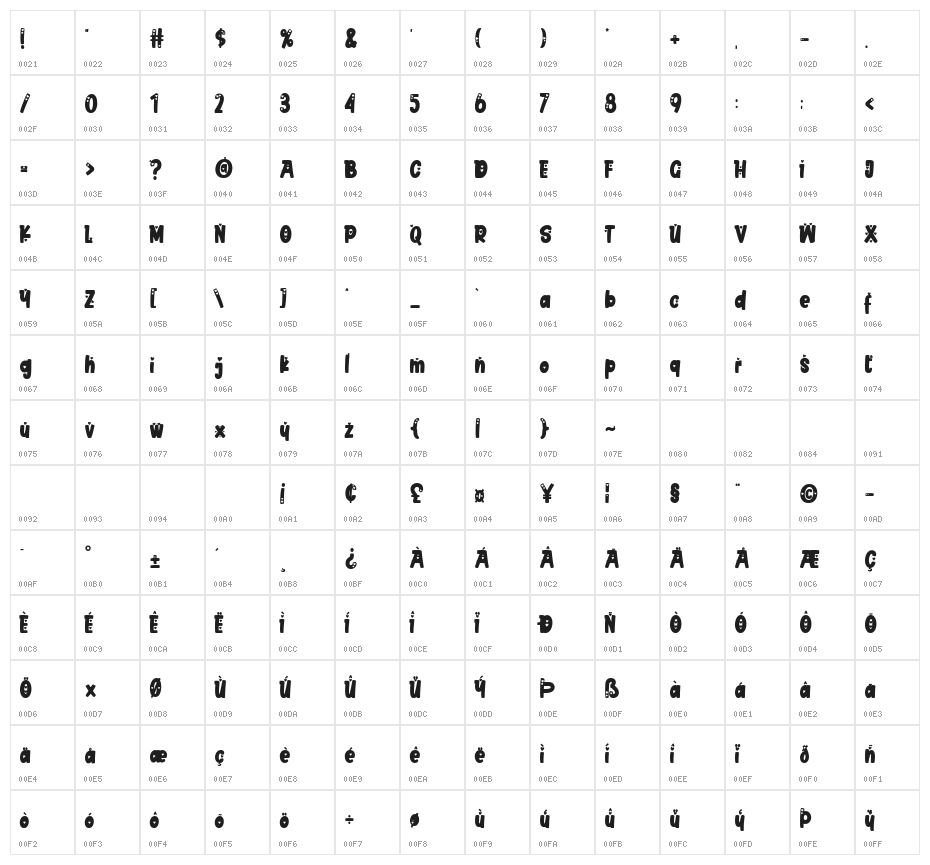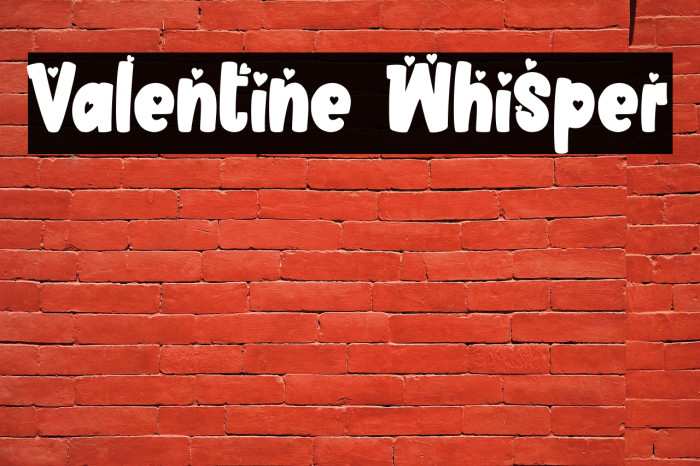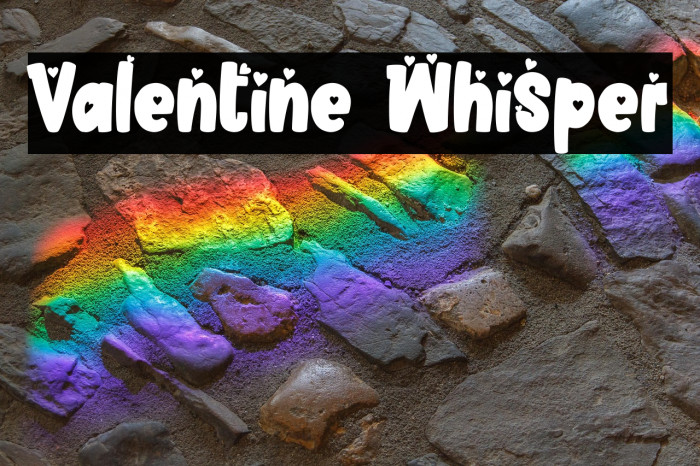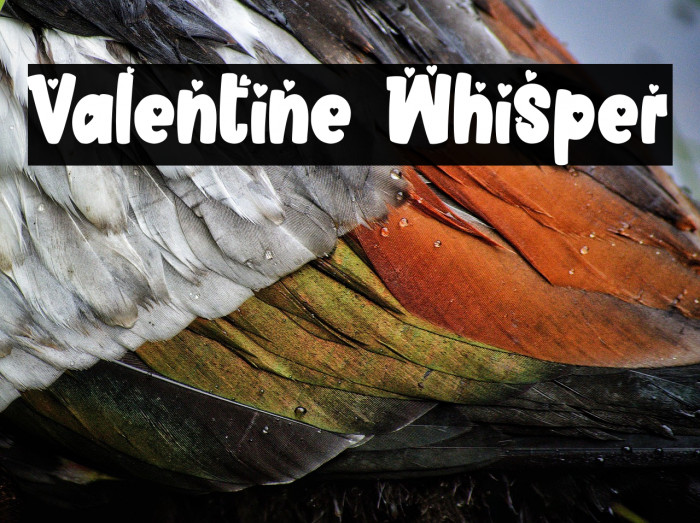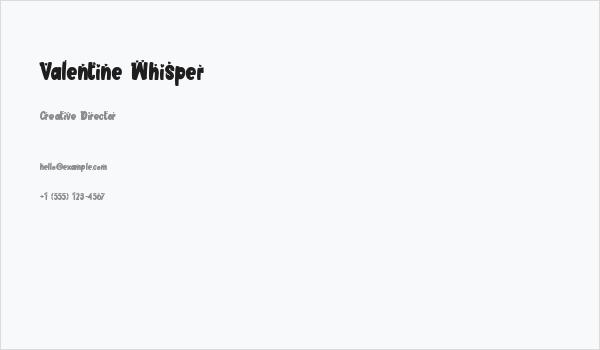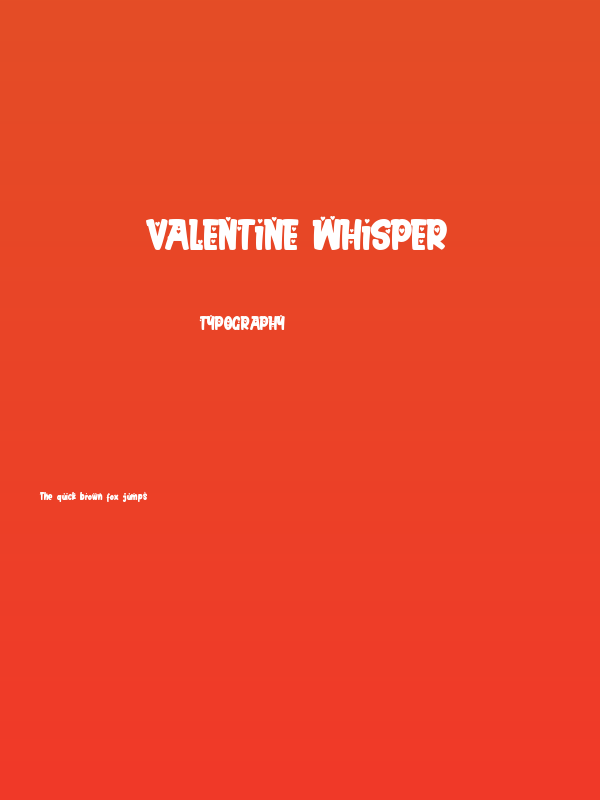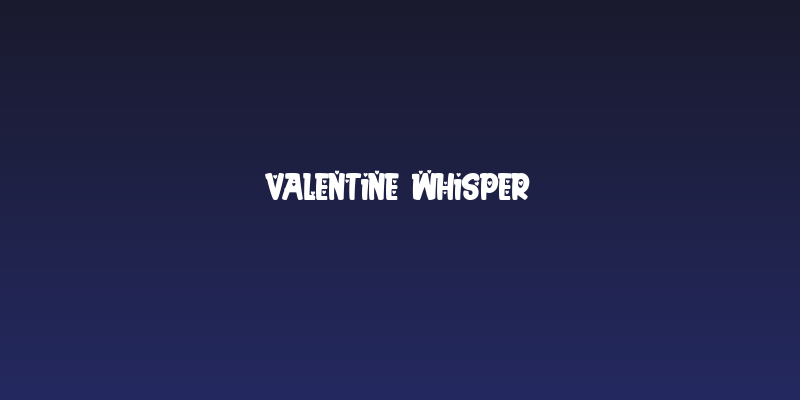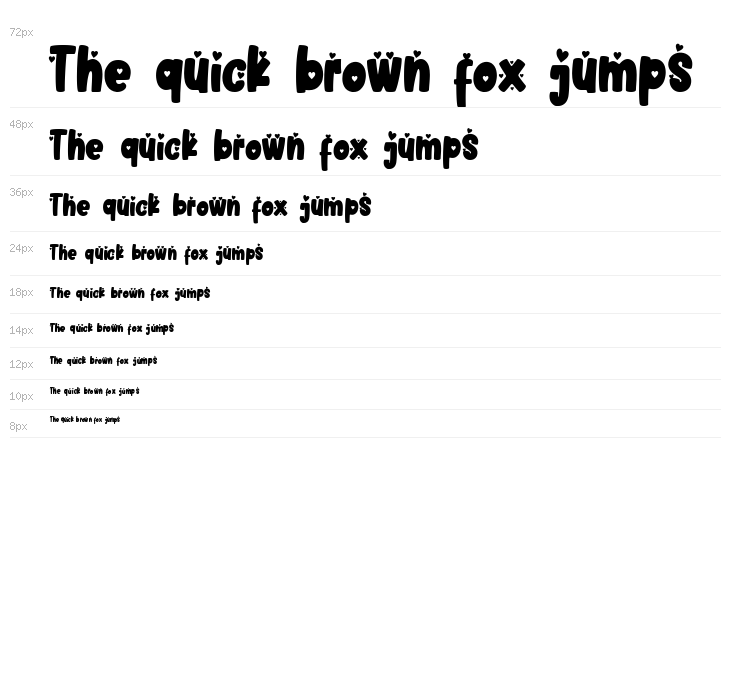
Valentine Whisper Font
Valentine Whisper Description
This playful and decorative font features bold, rounded characters with heart-shaped cutouts, adding a whimsical and romantic touch. The uppercase and lowercase letters maintain a consistent style, with a slightly chunky appearance that enhances readability while retaining a fun aesthetic. The numerals and special characters follow the same design, ensuring a cohesive look across all text elements. This font's unique style makes it perfect for projects that aim to convey love, joy, or a playful atmosphere.
| Overall Style | Playful, Romantic |
| Proposed Projects | Ideal for Valentine's Day cards, wedding invitations, playful branding, and children's book covers. |